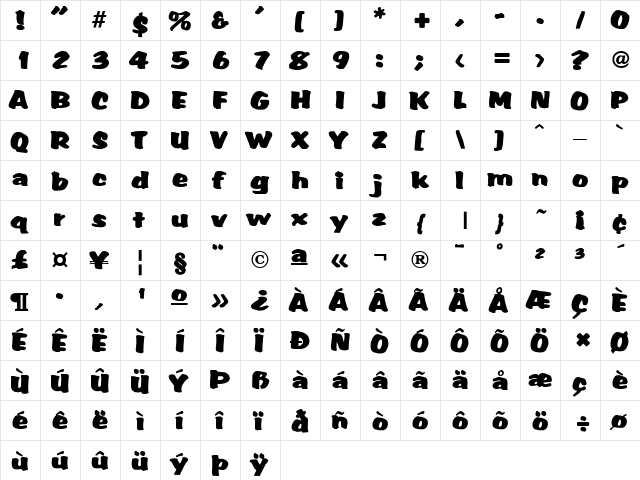
DS Accent Regular
Design Context for DS Accent Typeface
DS Accent is a composed and adaptable typeface that performs quietly and consistently across a wide range of design contexts.